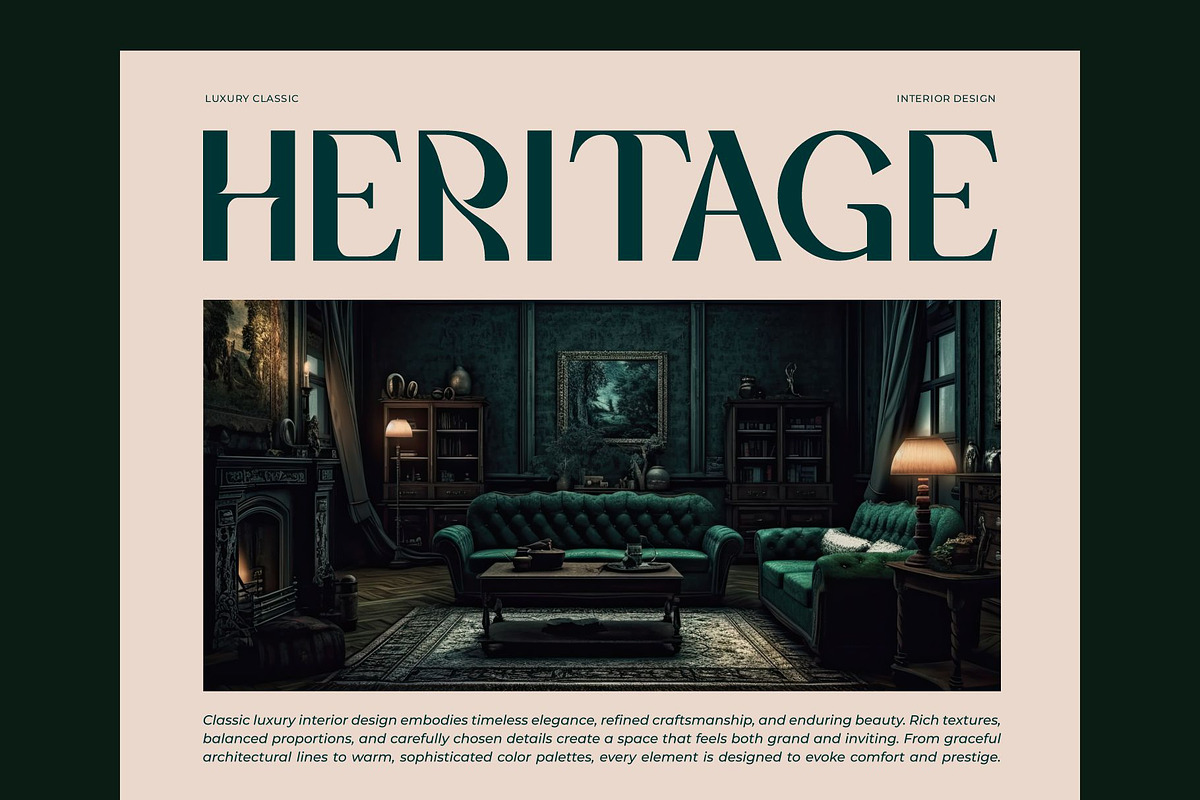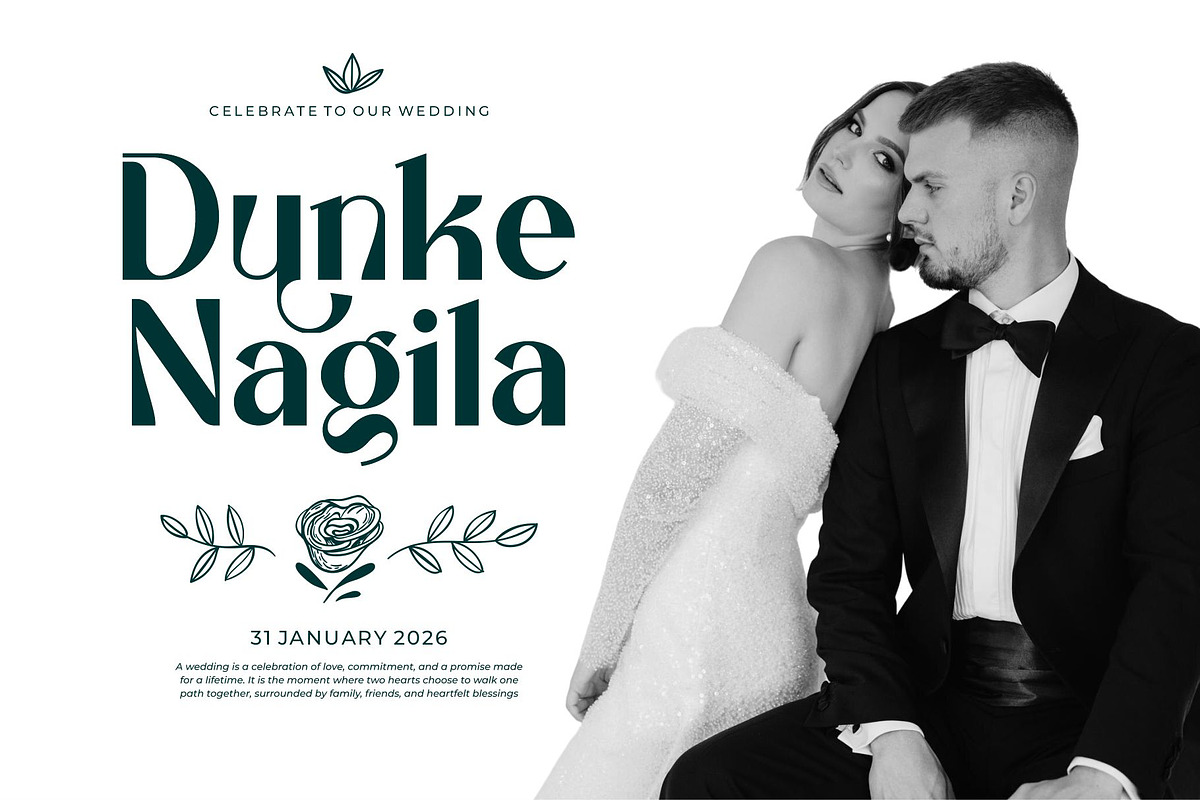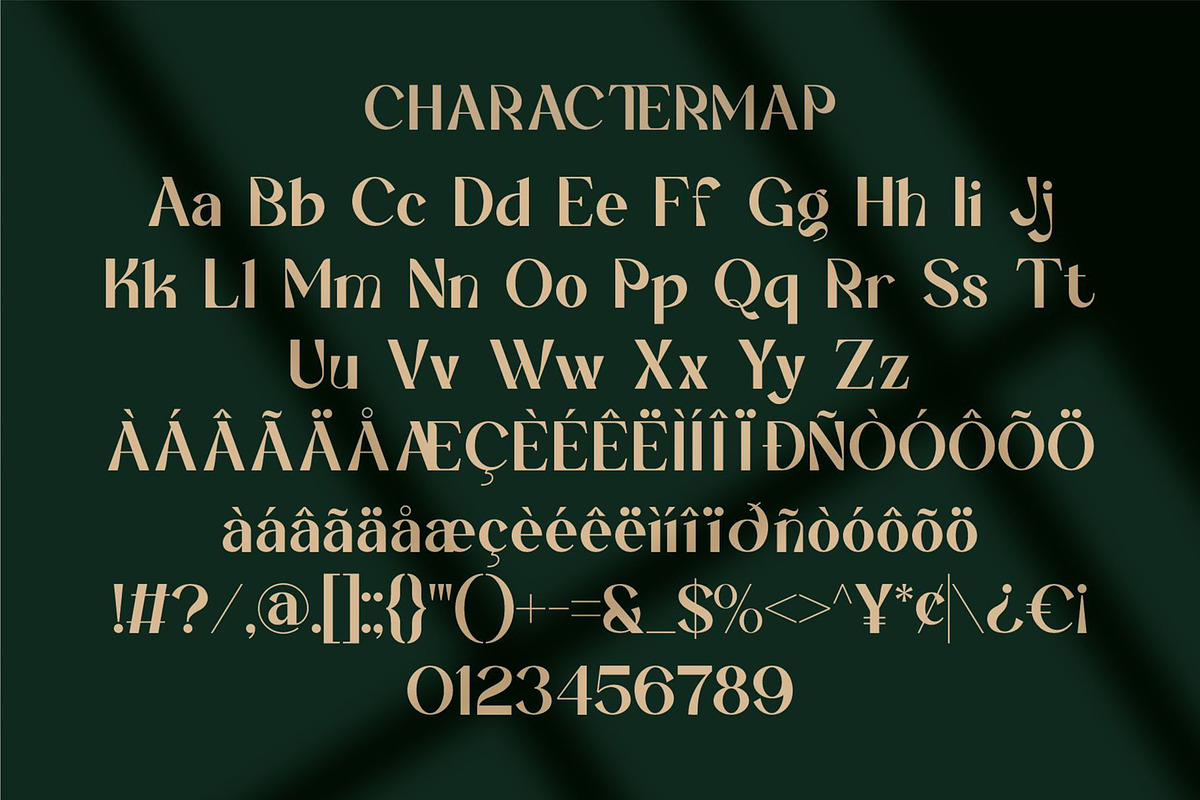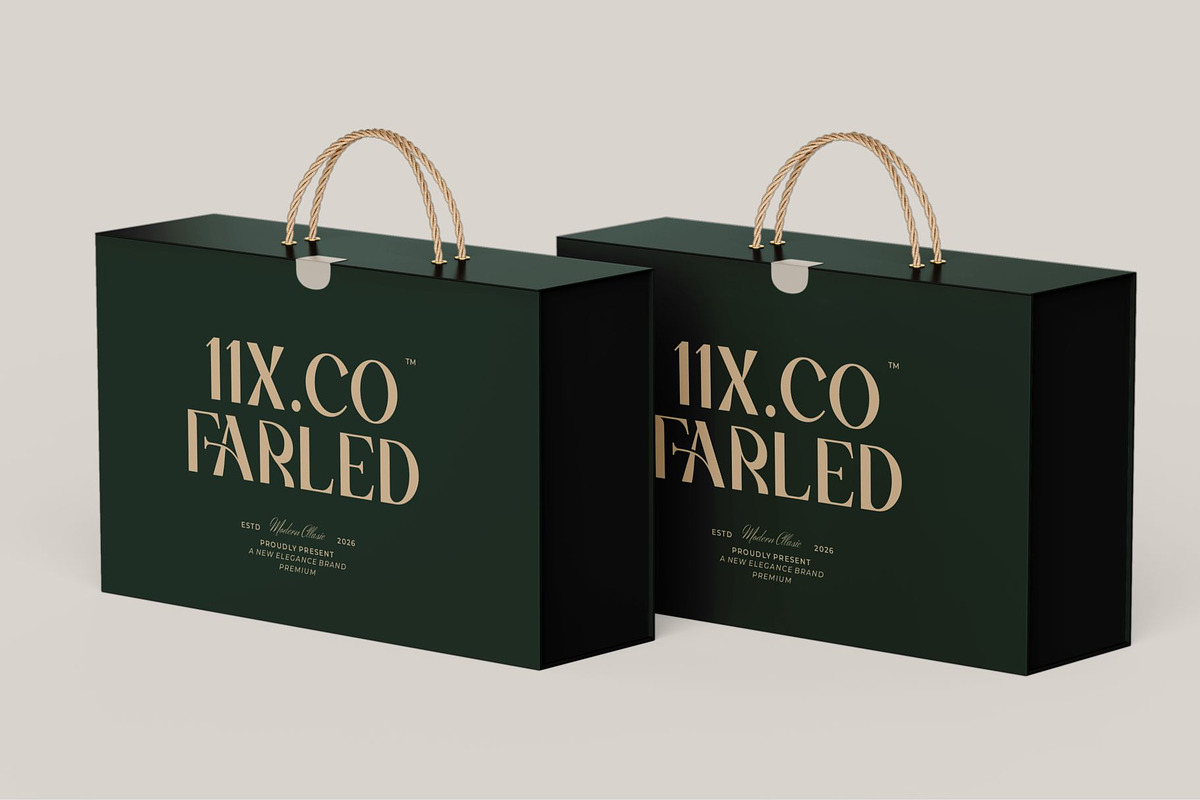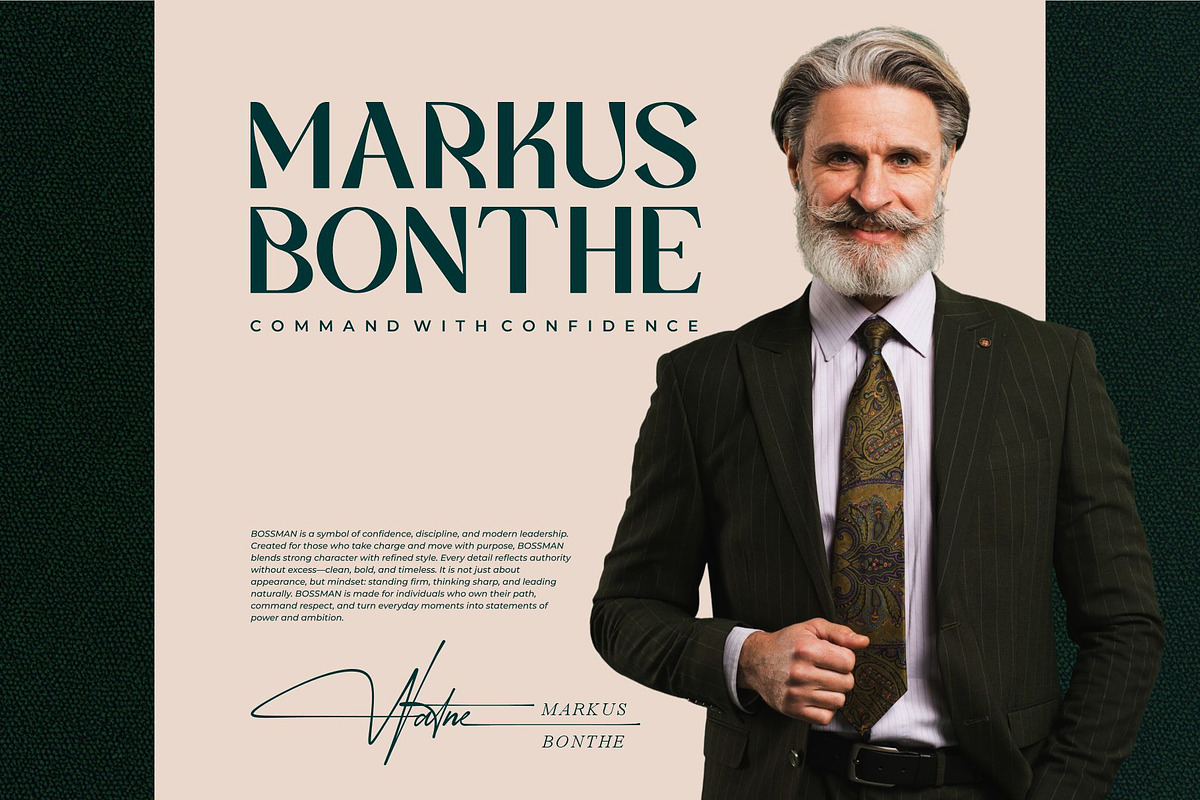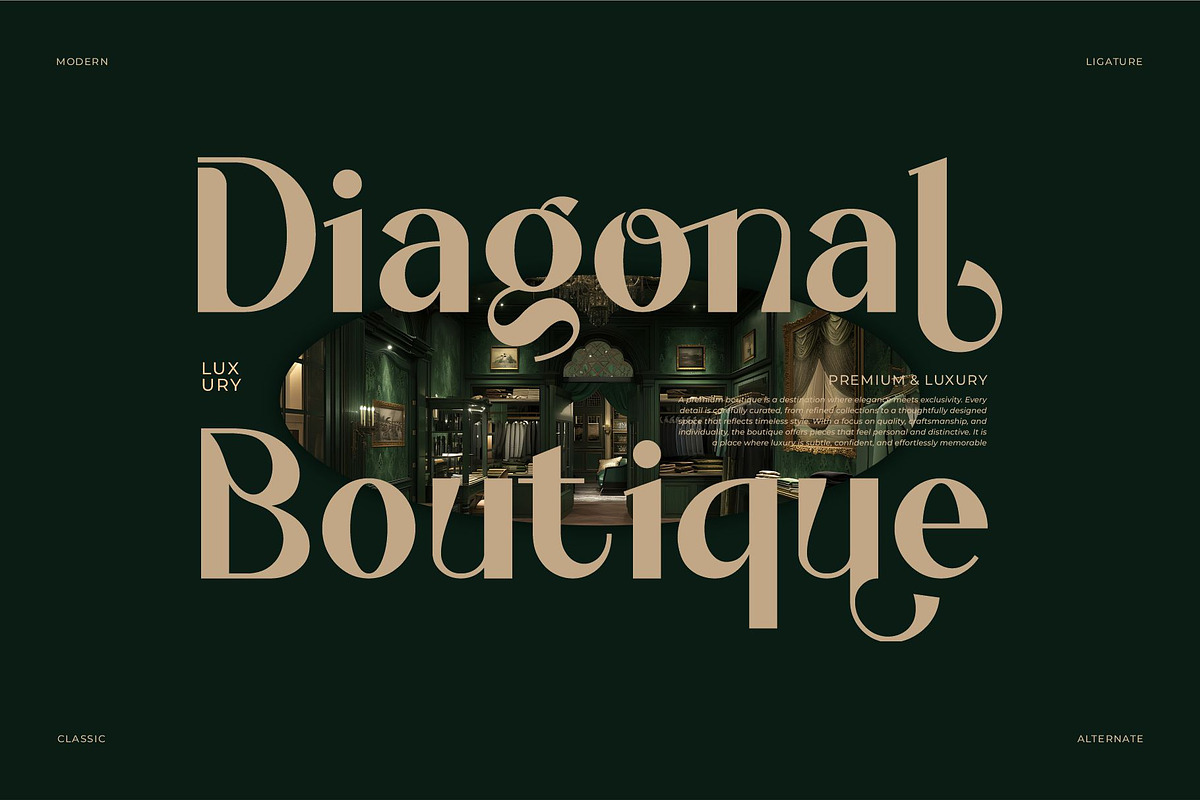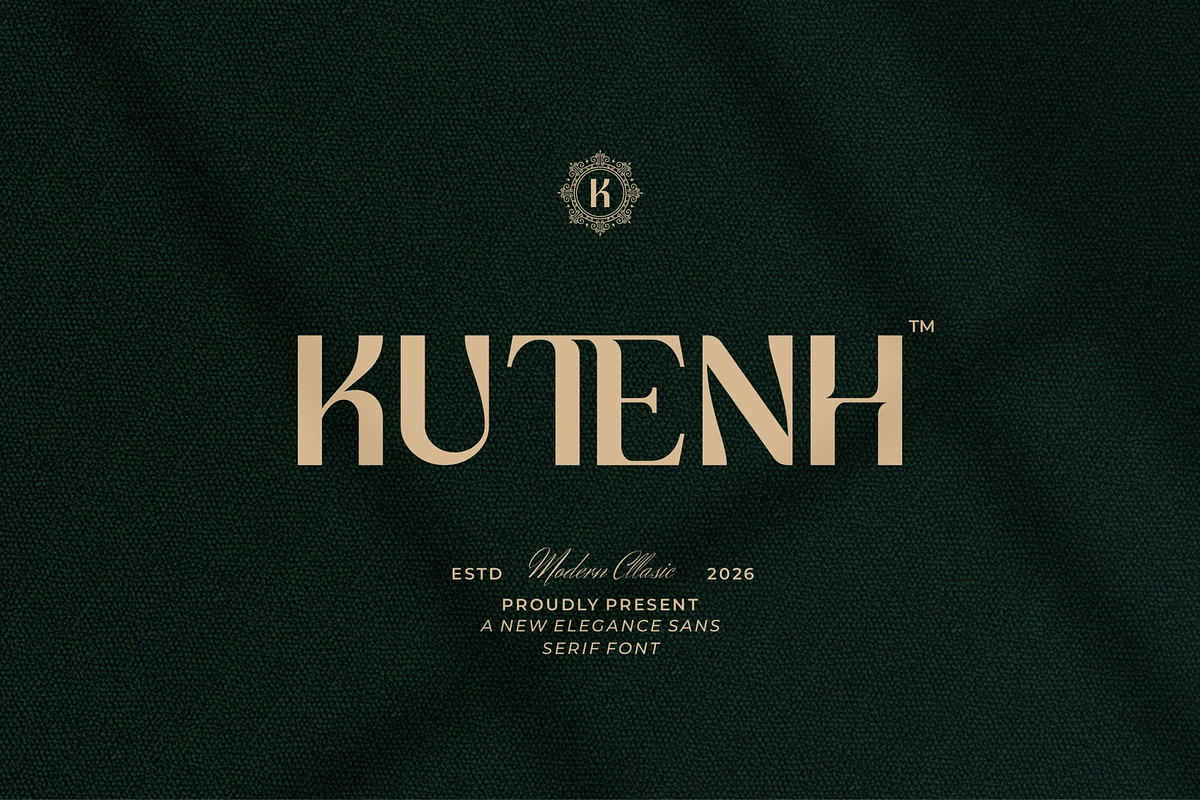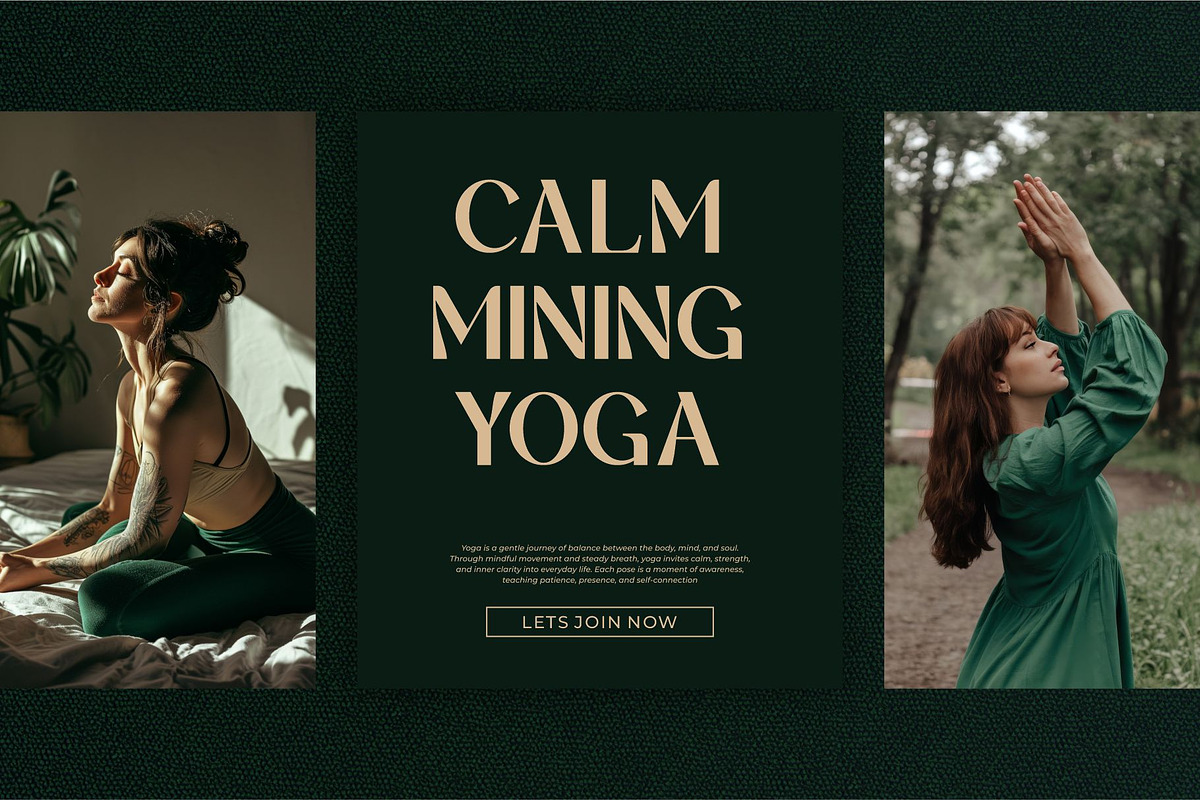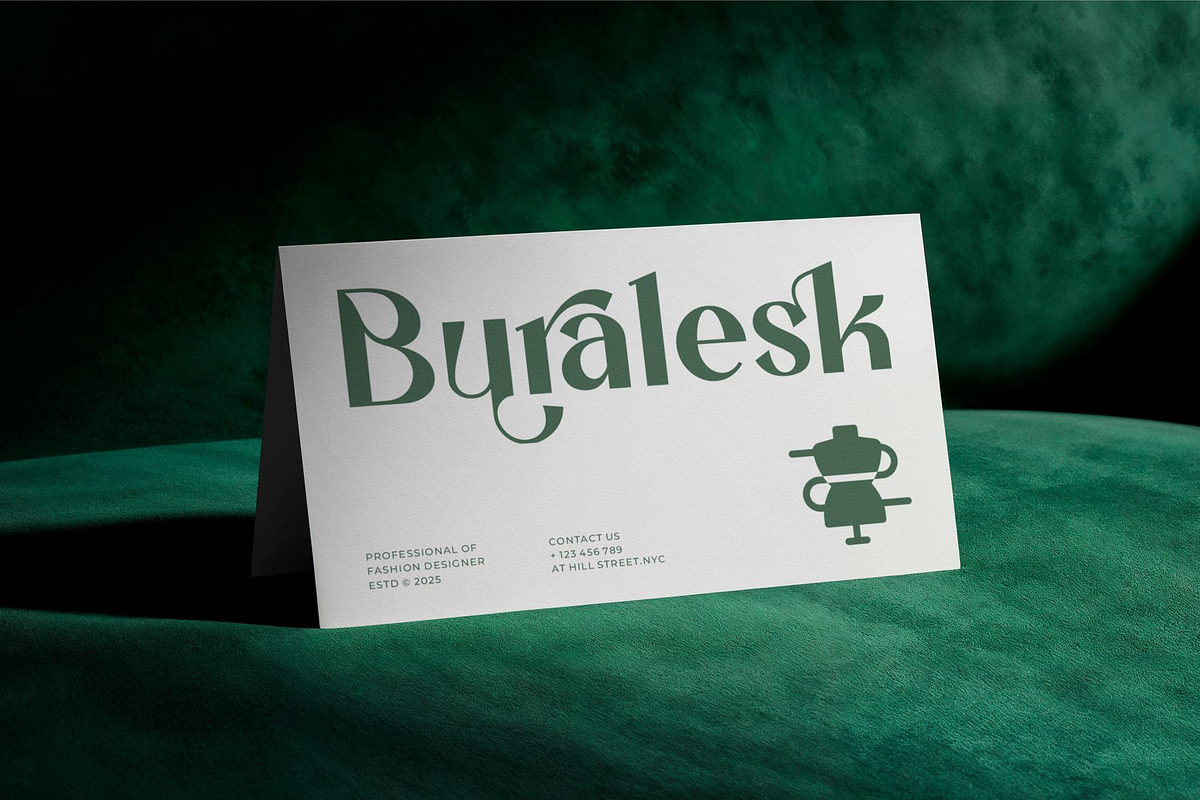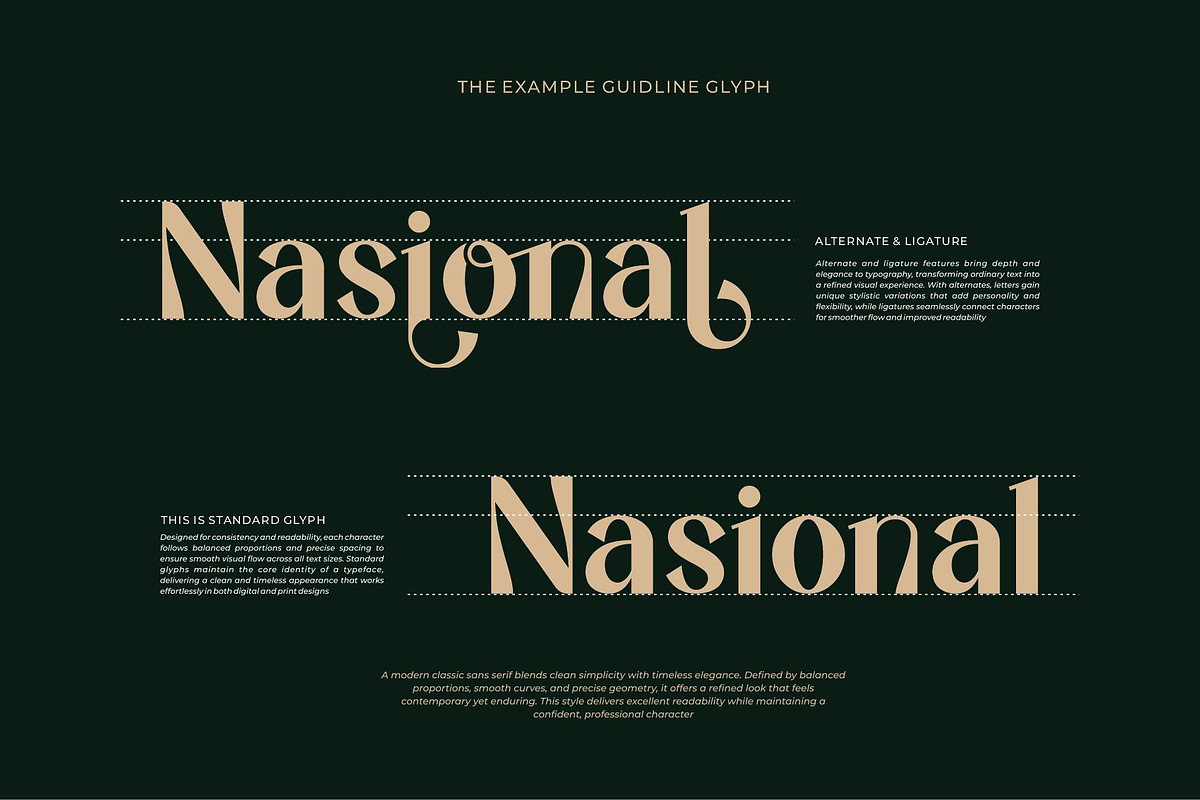
Kutenh || Modern Classy Sans Serif
Kutenh sans serif is a modern and classy font type for all branding and logo designs. This modern and elegan sans serif font has a beautiful character. This font is suitable for invitation card designs, cool logos, movie titles, movie names, business cards, book titles, brand names, and various other designs. Kutenh sans serif is a smooth sans serif font that exudes sophistication and the moment. Its stylish ligatures make this font a perfect partner for any project.